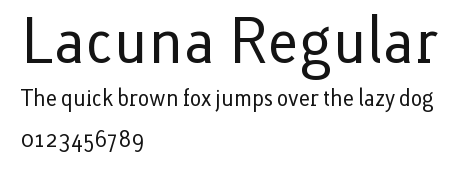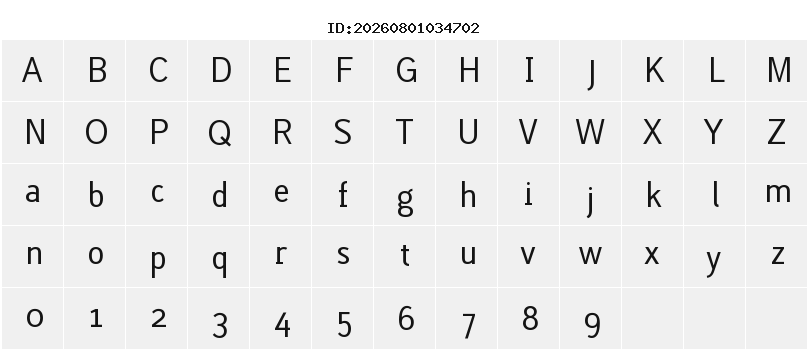
Lacuna Regular Preview
About Lacuna Regular.ttf
Lacuna Regular.ttf is a modern, elegant sans-serif font designed for ultimate readability and visual harmony. Perfect for branding, headlines, web design, and print materials.